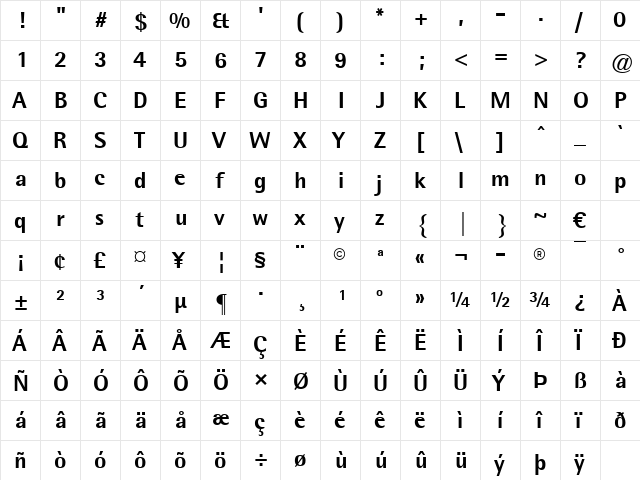
Agfa Rotis Semisans ExBold Regular
Design Context for Agfa Rotis Semisans ExBold Typeface
Agfa Rotis Semisans ExBold offers clean, dependable letterforms without strong stylistic allegiance, making it a practical choice for designers who need flexibility. The heavy weight commands attention and anchors typographic hierarchies.